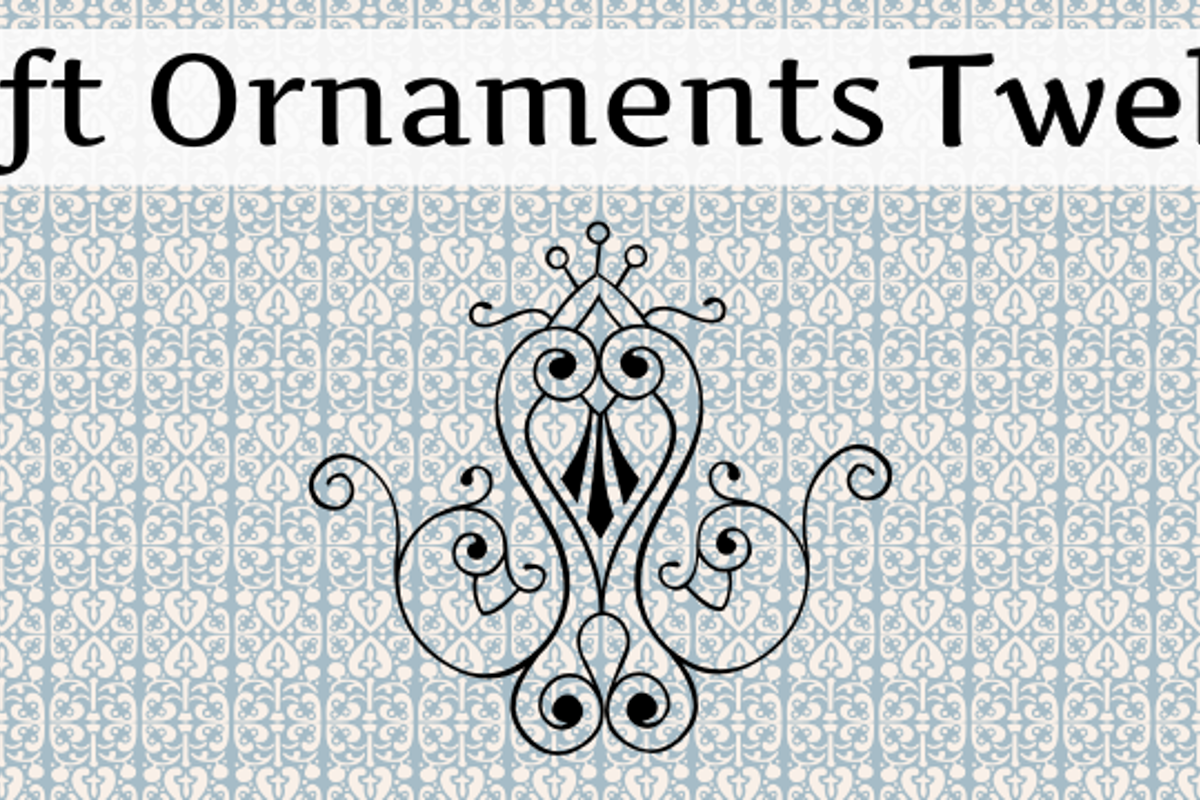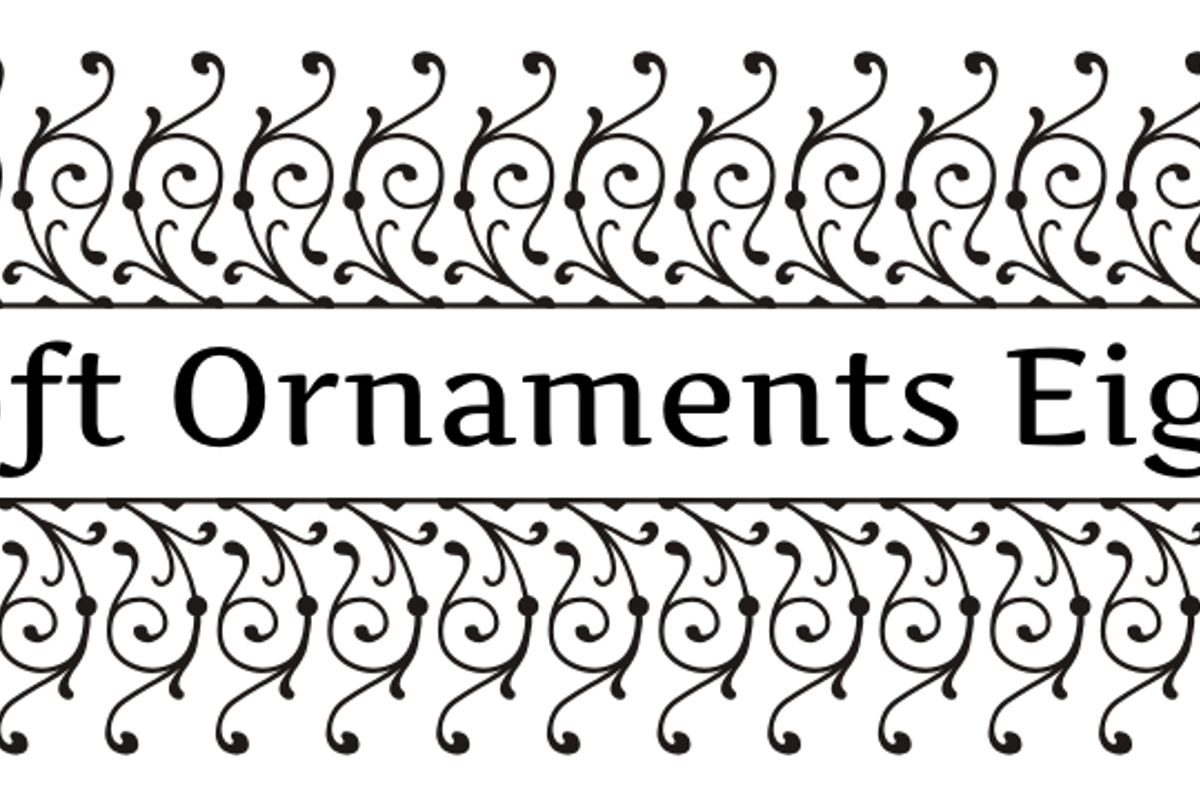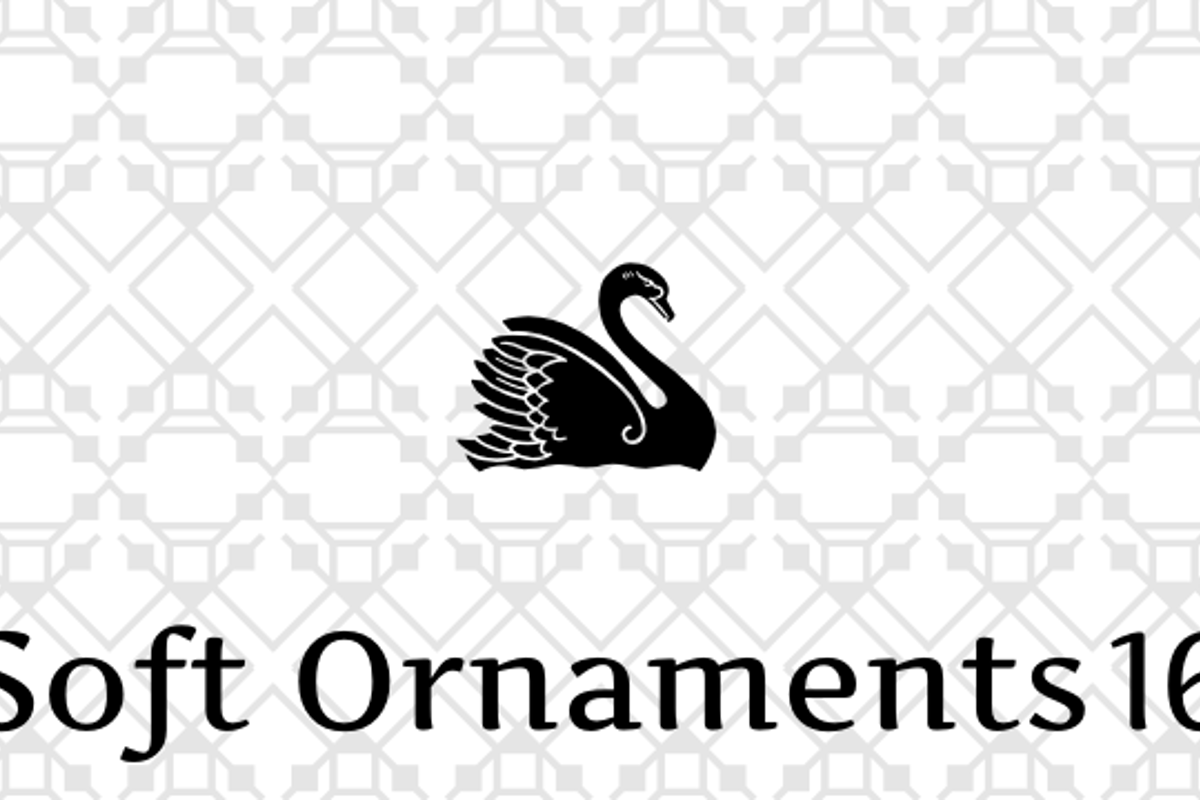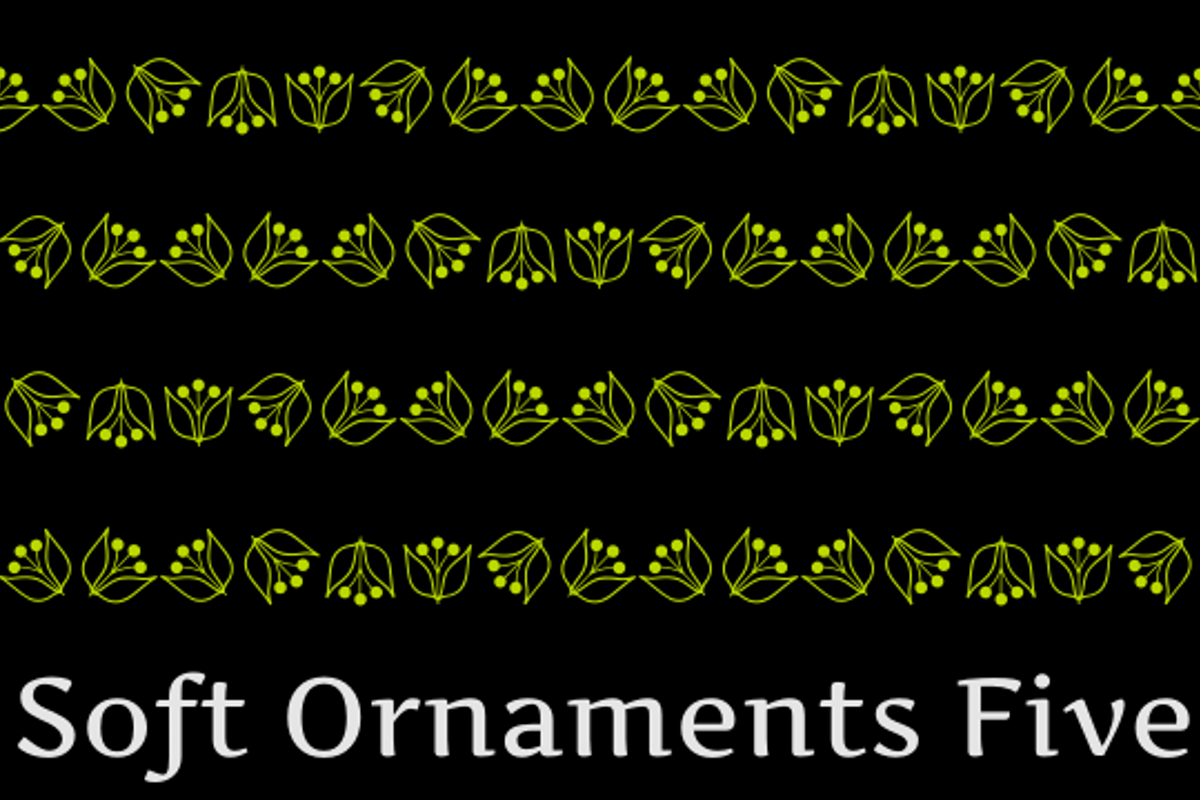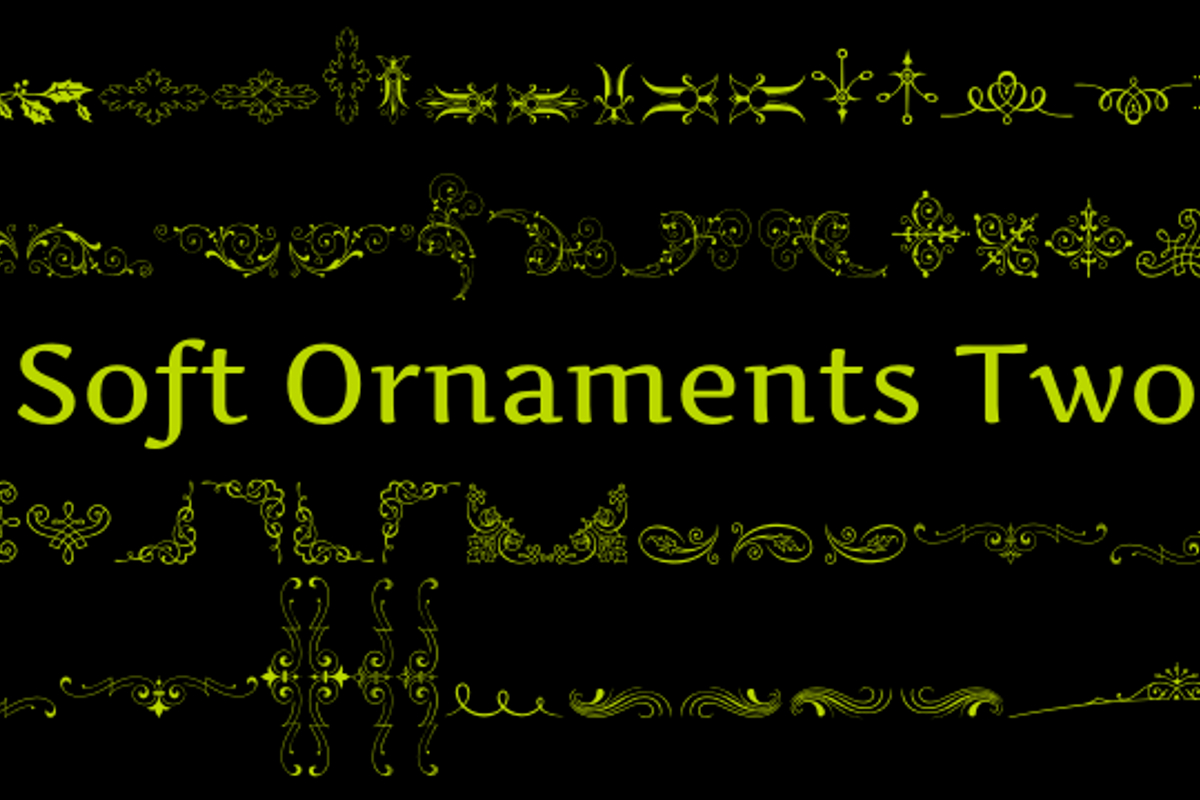
Soft Ornaments Font . Released in 2012 by intellecta. Free download of soft ornaments nine font. You can use the soft ornaments to create interesting designs, covers, shop and store name and logos. But donations for my historical studies about the history of the letters, calligraphy and typography are accepted. Free download of soft ornaments three font. Thousands of fonts available at pickafont.com Soft ornaments font dingbats : Thousands of designers (famous or not) use the image font detection system to find a font or similar free fonts from an image. Also, the soft ornaments font. Soft ornaments intellecta design paulo w website truetype personal. Soft ornaments font soft ornaments family consisting of 9 fonts. Free download of soft ornaments ten font.
Free download of soft ornaments nine font. You can use the soft ornaments to create interesting designs, covers, shop and store name and logos. Released in 2012 by intellecta. But donations for my historical studies about the history of the letters, calligraphy and typography are accepted. Soft ornaments font soft ornaments family consisting of 9 fonts. Free download of soft ornaments ten font. Thousands of designers (famous or not) use the image font detection system to find a font or similar free fonts from an image. Soft ornaments font dingbats : Also, the soft ornaments font. Soft ornaments intellecta design paulo w website truetype personal.
Soft Ornaments Font Also, the soft ornaments font. Soft ornaments font dingbats : Also, the soft ornaments font. Soft ornaments font soft ornaments family consisting of 9 fonts. Free download of soft ornaments three font. Free download of soft ornaments nine font. You can use the soft ornaments to create interesting designs, covers, shop and store name and logos. Free download of soft ornaments ten font. Thousands of fonts available at pickafont.com Released in 2012 by intellecta. Soft ornaments intellecta design paulo w website truetype personal. But donations for my historical studies about the history of the letters, calligraphy and typography are accepted. Thousands of designers (famous or not) use the image font detection system to find a font or similar free fonts from an image.
Download free Soft Ornaments Three Regular font Soft Ornaments Font Thousands of fonts available at pickafont.com You can use the soft ornaments to create interesting designs, covers, shop and store name and logos. But donations for my historical studies about the history of the letters, calligraphy and typography are accepted. Free download of soft ornaments ten font. Free download of soft ornaments nine font. Soft ornaments intellecta design paulo w. Soft Ornaments Font.
Soft Ornaments Thirteen Font Intellecta Design FontSpace Soft Ornaments Font Thousands of fonts available at pickafont.com You can use the soft ornaments to create interesting designs, covers, shop and store name and logos. Free download of soft ornaments ten font. Soft ornaments intellecta design paulo w website truetype personal. Soft ornaments font dingbats : Free download of soft ornaments three font. Thousands of designers (famous or not) use the image. Soft Ornaments Font.
Soft Ornaments Twenty Font Intellecta Design FontSpace Soft Ornaments Font Free download of soft ornaments three font. Thousands of fonts available at pickafont.com Also, the soft ornaments font. Soft ornaments font dingbats : Released in 2012 by intellecta. Soft ornaments font soft ornaments family consisting of 9 fonts. You can use the soft ornaments to create interesting designs, covers, shop and store name and logos. Soft ornaments intellecta design paulo. Soft Ornaments Font.
Soft Ornaments Free Font Download MaisFontes Soft Ornaments Font Released in 2012 by intellecta. Free download of soft ornaments nine font. Soft ornaments font soft ornaments family consisting of 9 fonts. Also, the soft ornaments font. Free download of soft ornaments three font. Soft ornaments font dingbats : Thousands of designers (famous or not) use the image font detection system to find a font or similar free fonts from. Soft Ornaments Font.
Soft Ornaments Five Font Intellecta Design FontSpace Soft Ornaments Font Also, the soft ornaments font. Free download of soft ornaments three font. Soft ornaments intellecta design paulo w website truetype personal. Thousands of fonts available at pickafont.com Thousands of designers (famous or not) use the image font detection system to find a font or similar free fonts from an image. But donations for my historical studies about the history of. Soft Ornaments Font.
Soft Ornaments Seventeen Font download free Soft Ornaments Font You can use the soft ornaments to create interesting designs, covers, shop and store name and logos. Free download of soft ornaments nine font. Free download of soft ornaments ten font. Also, the soft ornaments font. Free download of soft ornaments three font. Thousands of designers (famous or not) use the image font detection system to find a font or. Soft Ornaments Font.
Soft Ornaments 21 fonte Soft Ornaments Font Soft ornaments intellecta design paulo w website truetype personal. But donations for my historical studies about the history of the letters, calligraphy and typography are accepted. Free download of soft ornaments nine font. Thousands of designers (famous or not) use the image font detection system to find a font or similar free fonts from an image. Released in 2012 by. Soft Ornaments Font.
Soft Ornaments Font Intellecta Design FontSpace Soft Ornaments Font Released in 2012 by intellecta. Free download of soft ornaments nine font. Soft ornaments font dingbats : Also, the soft ornaments font. Soft ornaments intellecta design paulo w website truetype personal. Soft ornaments font soft ornaments family consisting of 9 fonts. But donations for my historical studies about the history of the letters, calligraphy and typography are accepted. Free download. Soft Ornaments Font.
Soft Ornaments Six Font Intellecta Design FontSpace Soft Ornaments Font Soft ornaments font dingbats : Free download of soft ornaments ten font. Soft ornaments font soft ornaments family consisting of 9 fonts. Free download of soft ornaments nine font. Soft ornaments intellecta design paulo w website truetype personal. Thousands of fonts available at pickafont.com Released in 2012 by intellecta. Free download of soft ornaments three font. But donations for my. Soft Ornaments Font.